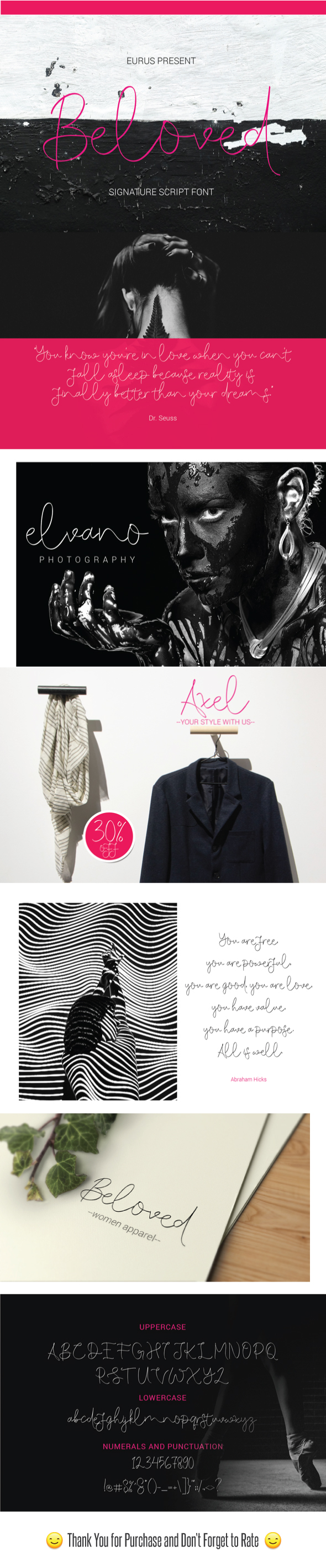
Beloved Signature Script
Beloved Signature Script is a signature script font, this font is perfect for making your set of apparel, T-shirt,Hoodie, quotes, product packaging, brand, blog posts, greeting cards, labels, posters, wall art, etc.
Come with feature:
• Uppercase
• Lowercase
• Numerals
• Punctuation